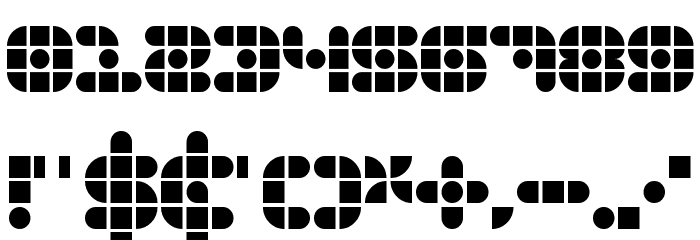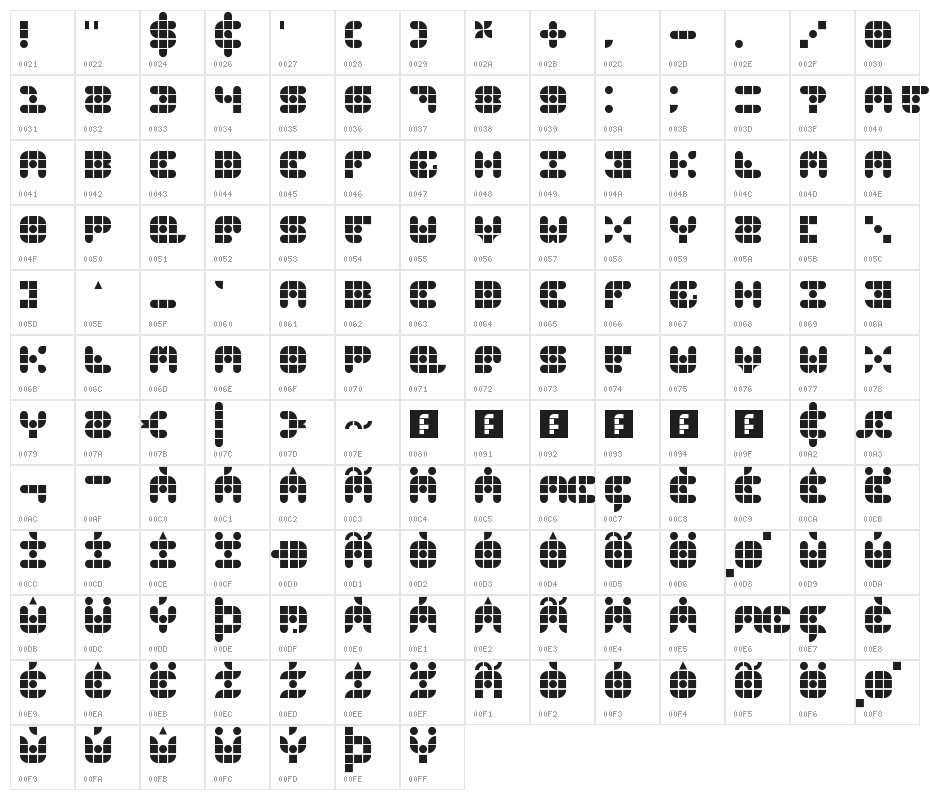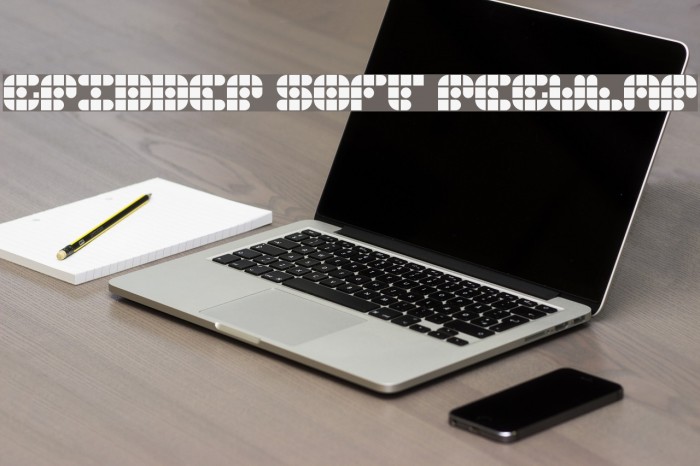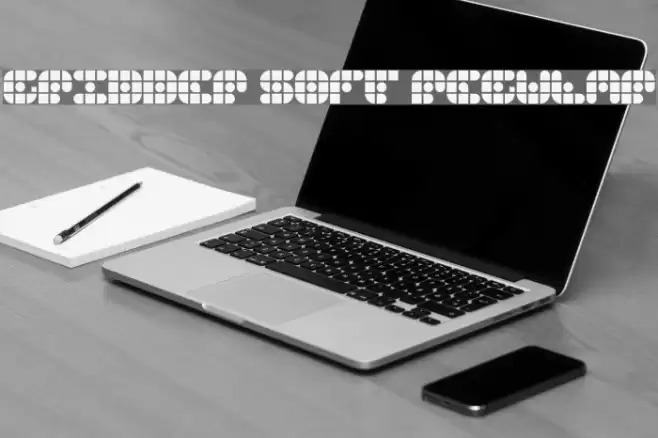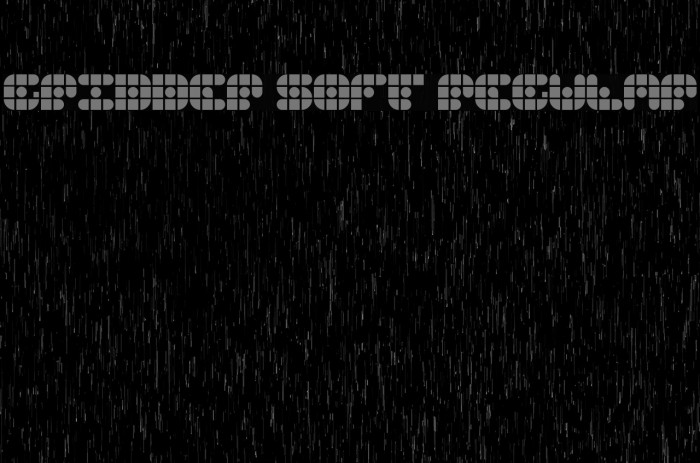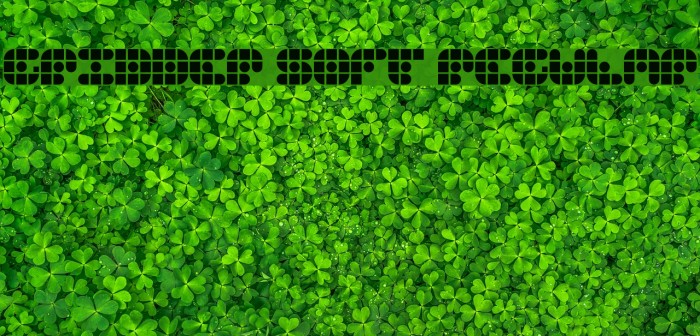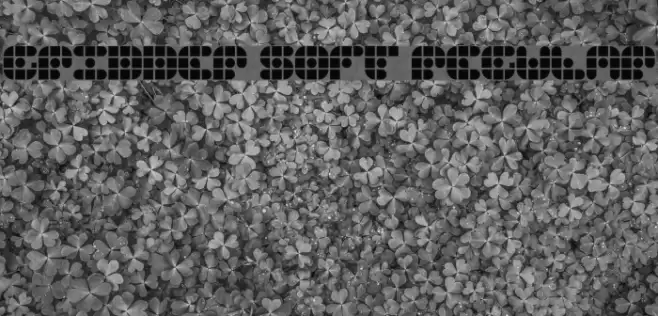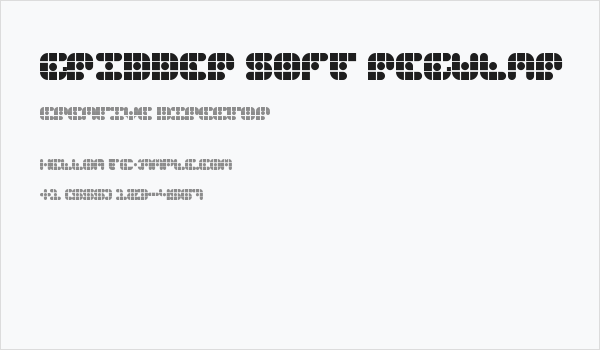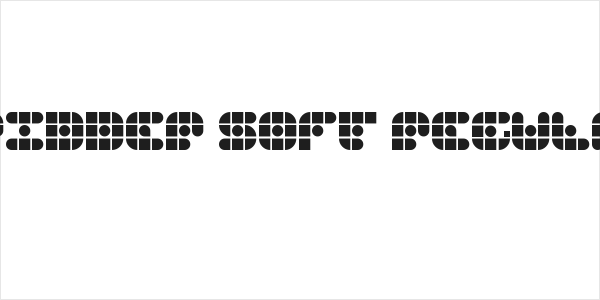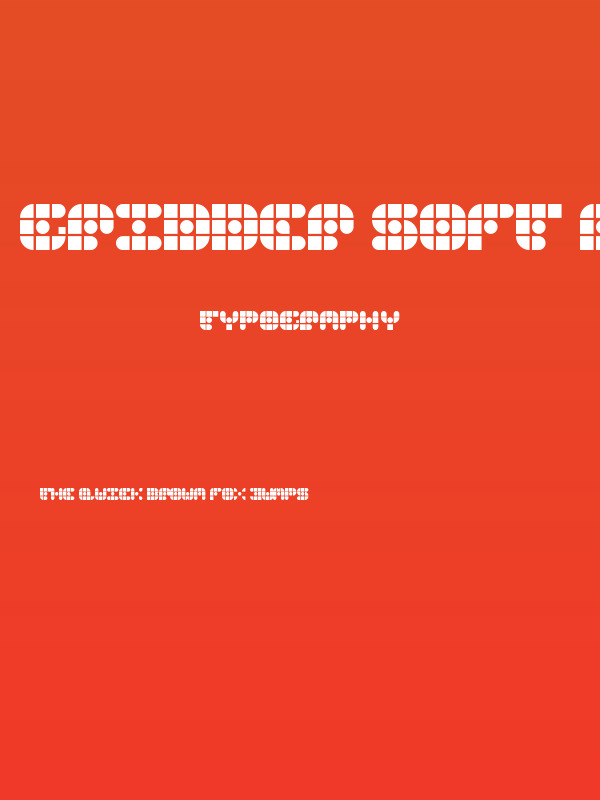
Gridder Soft Regular Font
Gridder Soft Regular Description
This font features a unique, grid-based design that combines geometric shapes to form each character. The letters and numbers are constructed from a series of interconnected circles and squares, creating a bold and futuristic appearance. The consistent use of rounded edges and uniform grid patterns gives it a cohesive and modern look. The font's distinct style makes it stand out, with each character maintaining a uniform height and width, contributing to its structured and organized aesthetic. This design is particularly eye-catching and suitable for projects that require a contemporary and innovative touch.
| Use Case | Logos, Headlines, Digital interfaces |
| Proposed Projects | Ideal for digital interfaces, tech branding, modern posters, and innovative product packaging. |